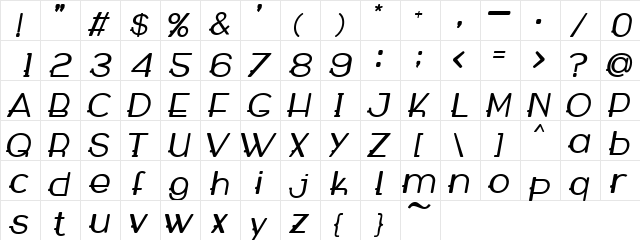
WABECO Bold Italic Font Preview
Design Context for WABECO Typeface
WABECO takes a measured approach to typography — its balanced proportions and neutral character make it a reliable workhorse for both digital and print work. The slanted form adds forward momentum and visual energy. The heavy weight commands attention and anchors typographic hierarchies.
Pro Tip: Try WABECO for annotation and caption copy alongside an upright companion — the contrast in angle creates a dynamic but ordered typographic system.